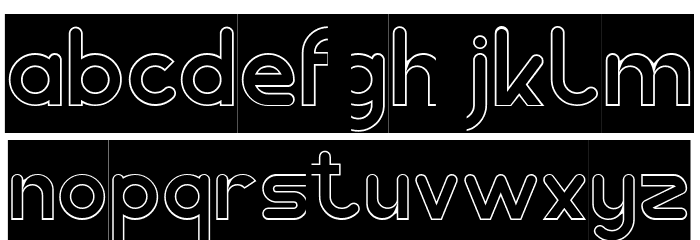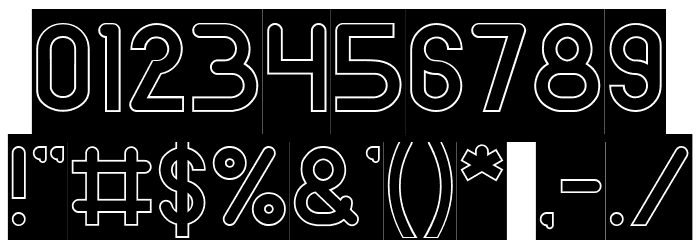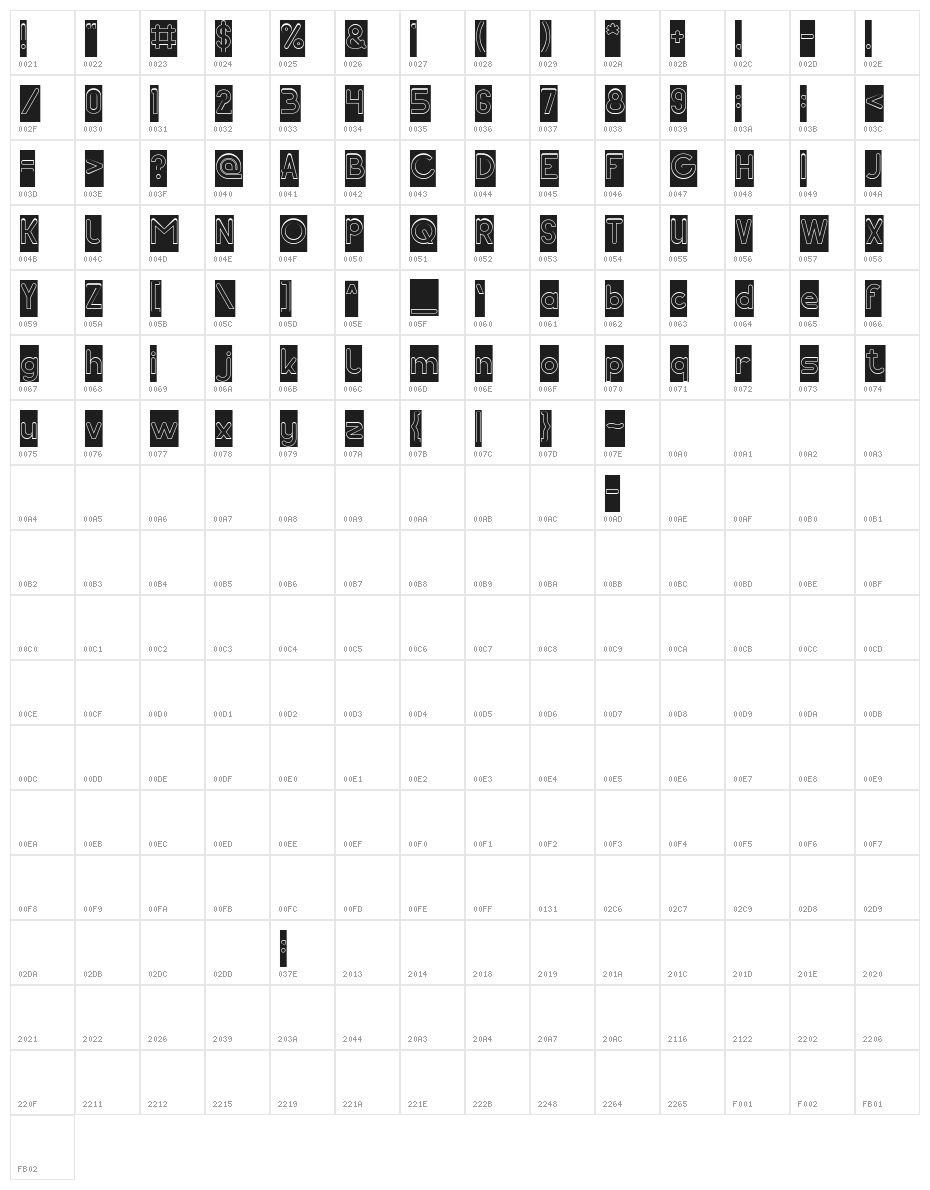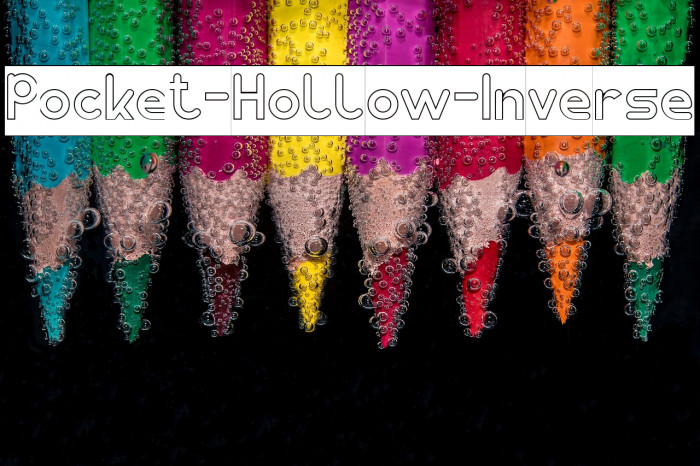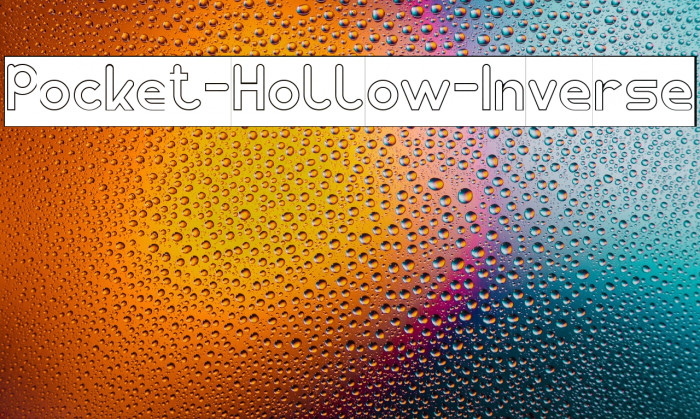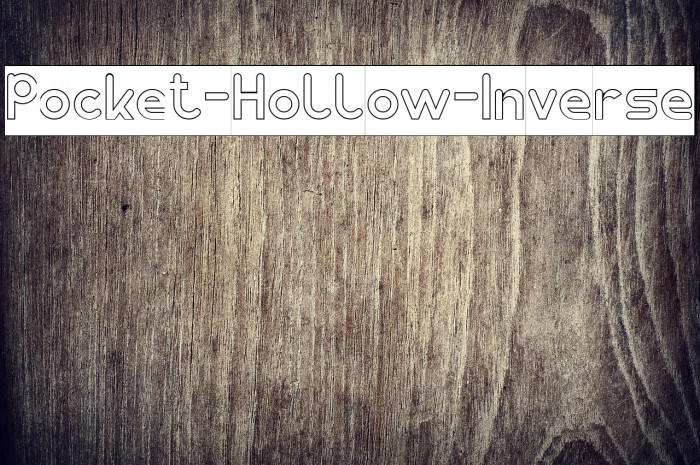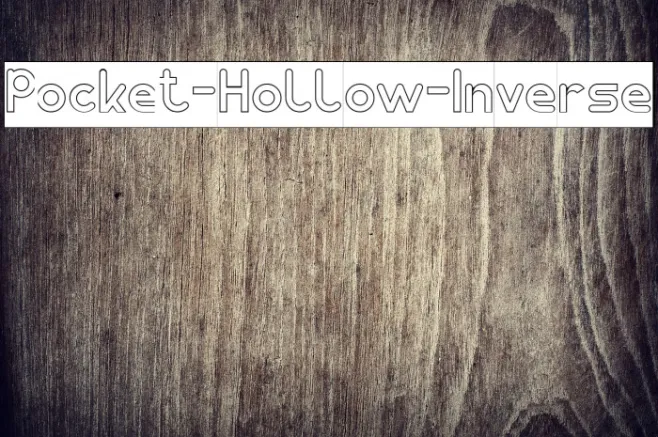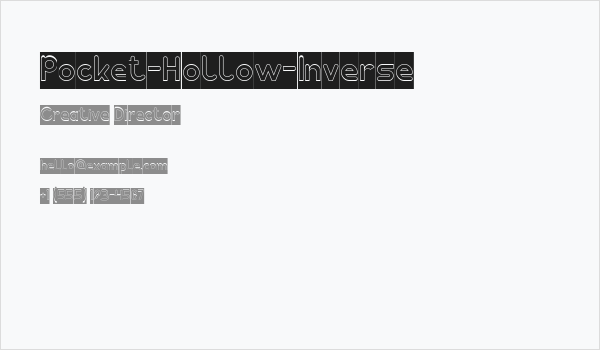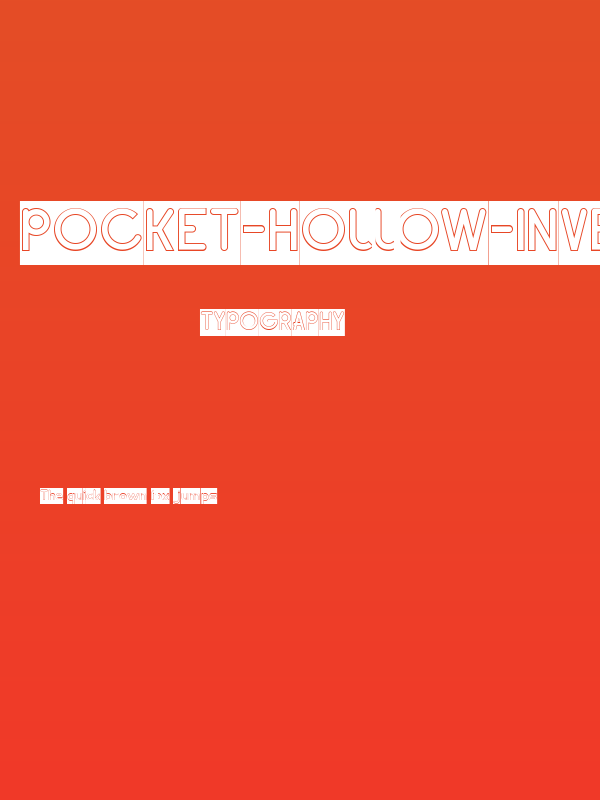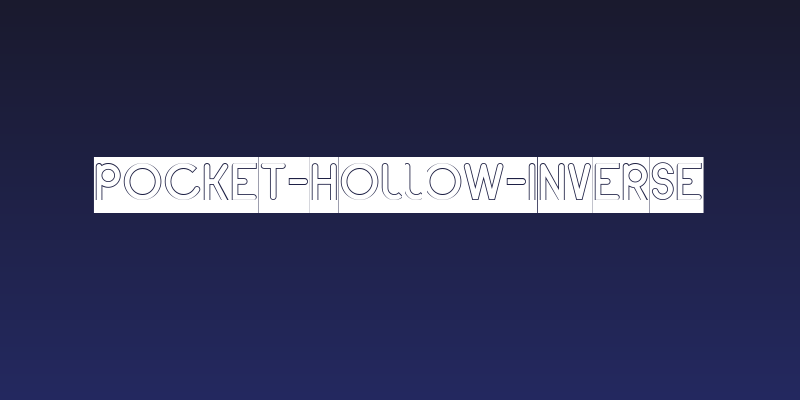
Pocket-Hollow-Inverse Font
This font features a unique hollow design with an inverse style, where the interior of each character is cut out, creating a striking outline effect. The characters are bold and geometric, with clean lines and a modern aesthetic. The uppercase and lowercase letters maintain a consistent style, with rounded edges that add a touch of softness to the otherwise sharp design. The numerals and special characters follow the same hollow pattern, ensuring uniformity across all glyphs. This font's distinct appearance makes it ideal for eye-catching designs.
A modern, hollow, geometric font with a striking outline effect.
- Proposed Projects: Ideal for branding, posters, headlines, and any design requiring a bold, modern look.